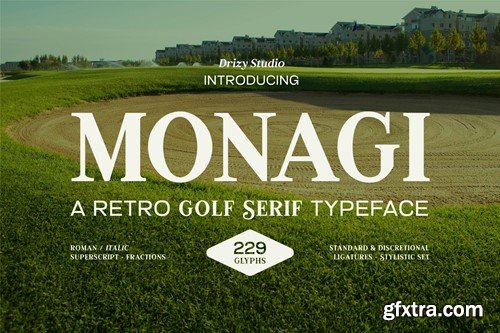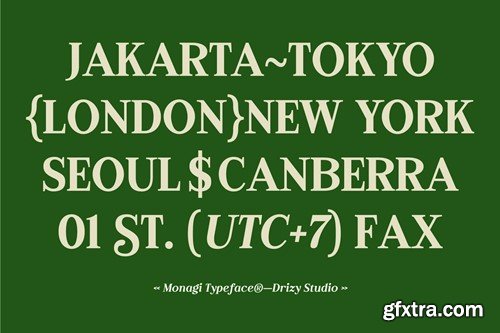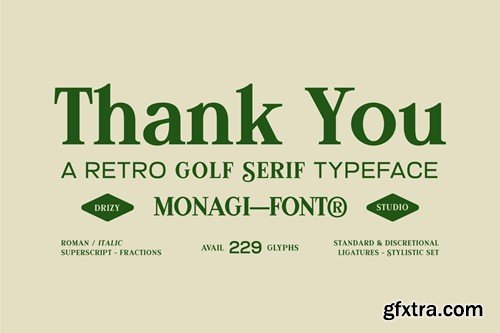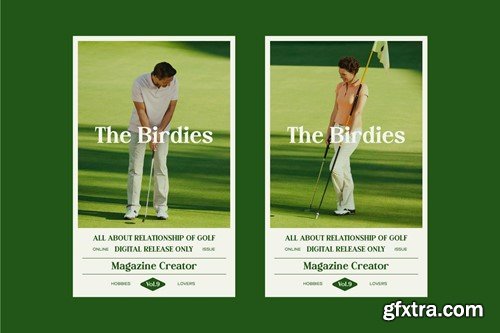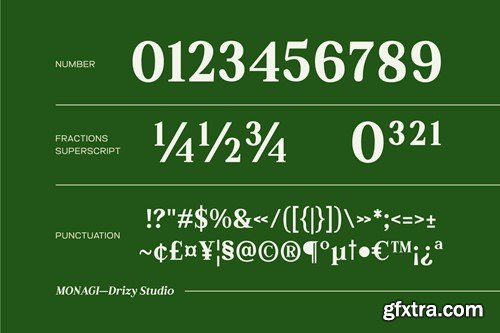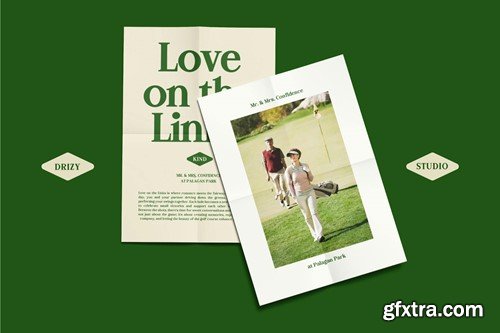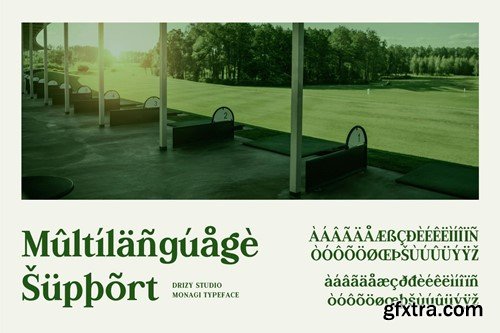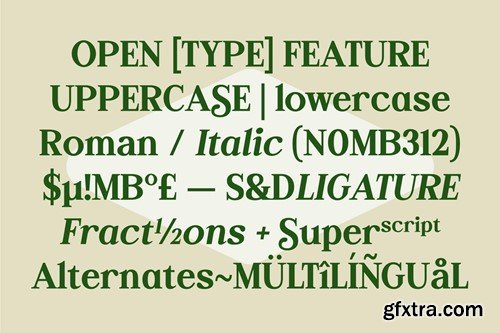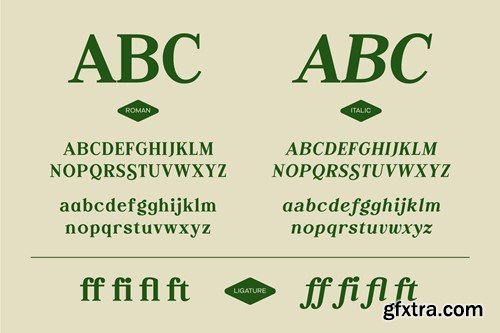
Monagi – Retro Golf Serif Font Monagi is a timeless typeface that captures the essence of elegance and sophistication on the green. Perfectly suited for the refined golfer, this font seamlessly blends classic charm with contemporary style, making it an ideal choice for any Golf – Elegant Sport (Classic Taste) related design project. With it’s distinct serif details and retro appeal, Monagi brings a touch of vintage flair to logos, apparel, signage, and more. Each letter is crafted to exude a sense of grace and precision, mirroring the finesse of the sport itself. Elevate your design game and let Monagi Retro Golf Serif Font be the ace in your creative toolkit. Whether for a prestigious golf tournament, a luxury sports brand, or an elegant sporting event, this font stands as a symbol of classic taste and enduring sophistication. Monagi features: -- Character Set (Uppercase & Lowercase) File Included: OTF & TTF Elevate and explore the design possibilities with this Golf – Elegant Sport (Classic Taste) Design Font!